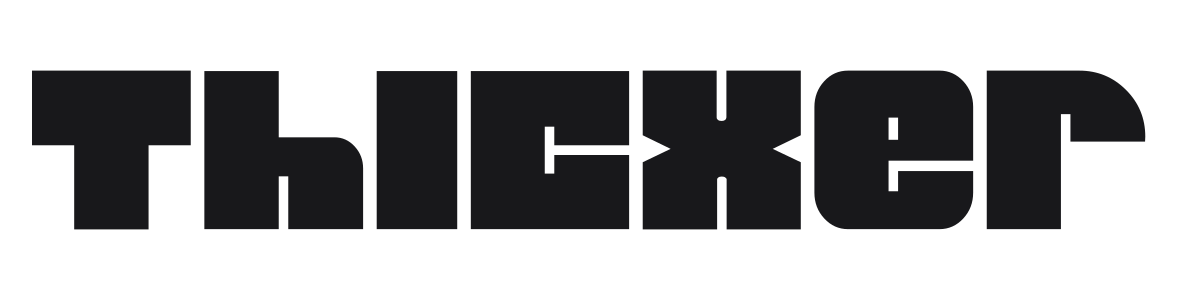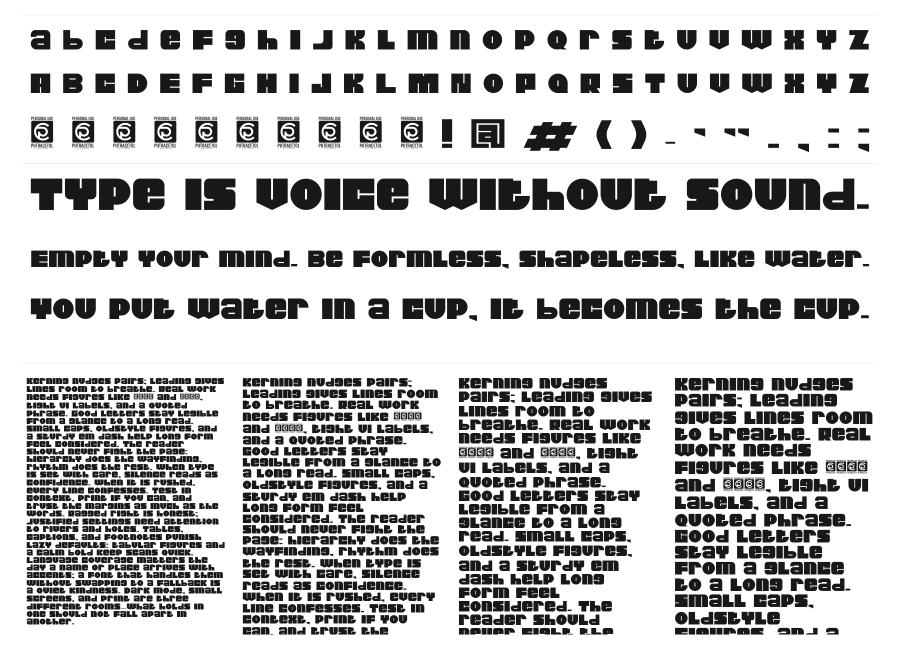
Thicxer
Thicxer is a heavy, modular display sans built from thick geometric strokes with distinctive notched cuts at character junctions. The chunky proportions and near-zero stroke contrast give it a strong retro-futurist personality rooted in 1970s pop and arcade aesthetics. It hits hard at large sizes on posters, album covers, and logo treatments.